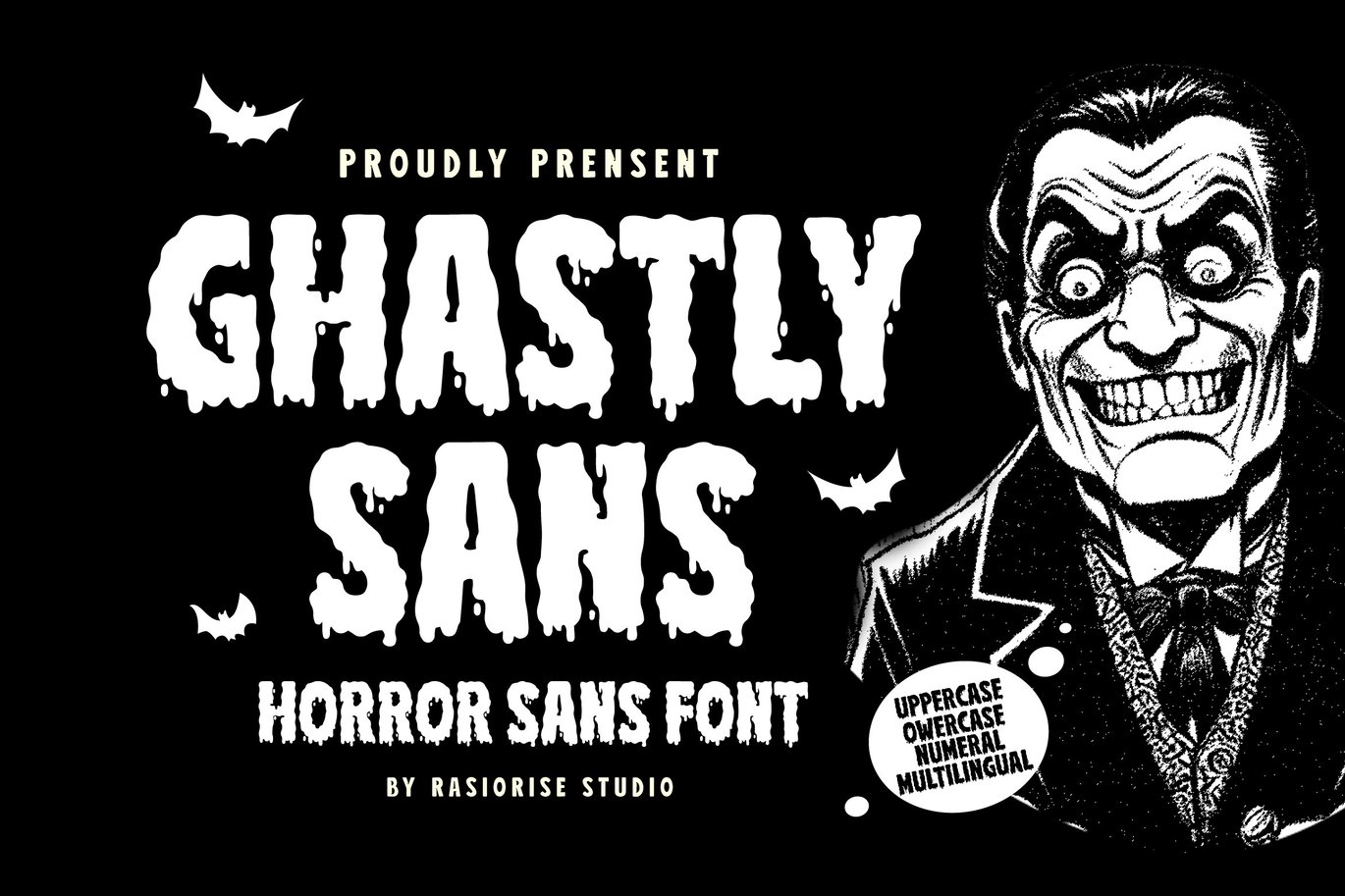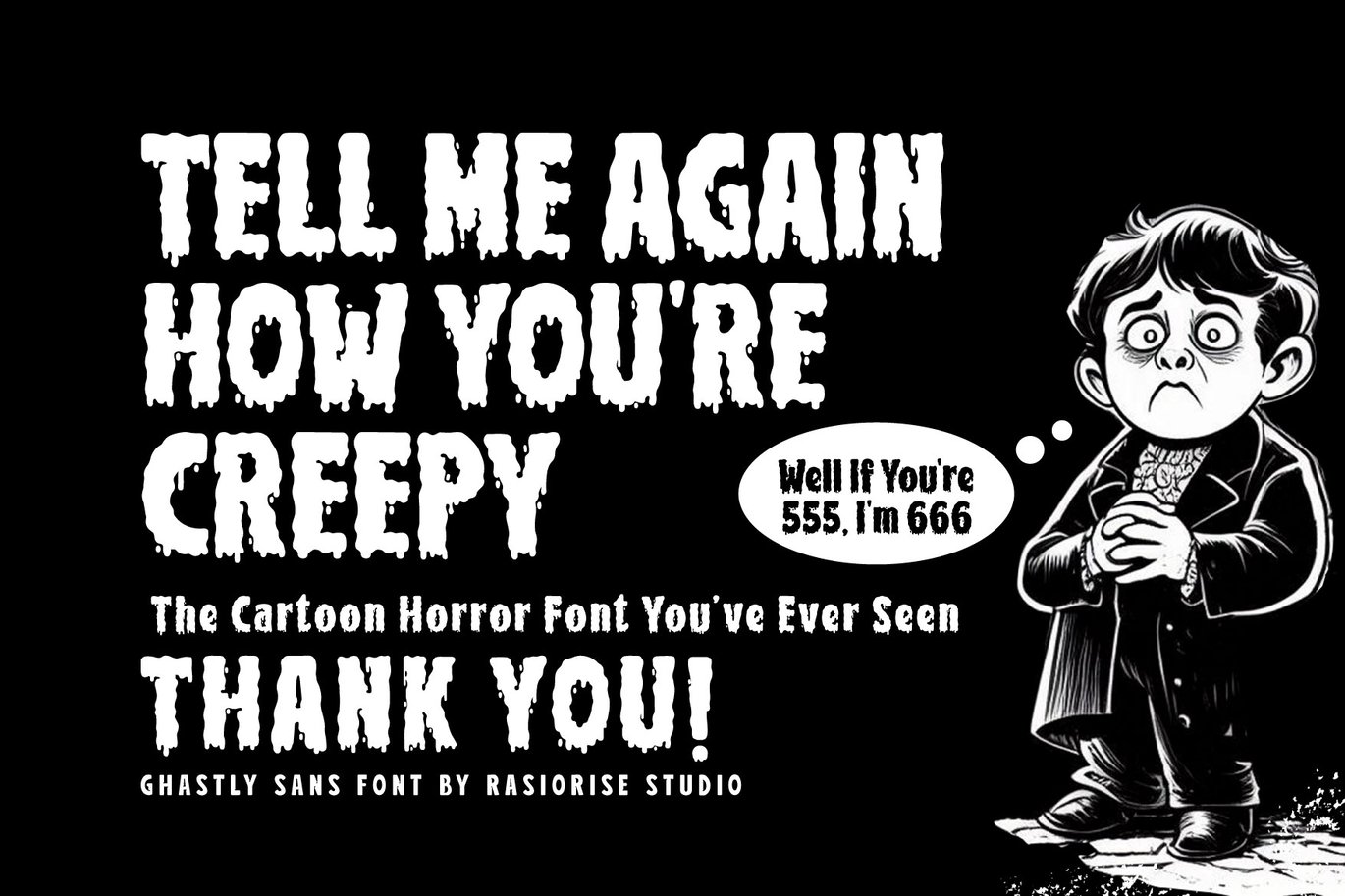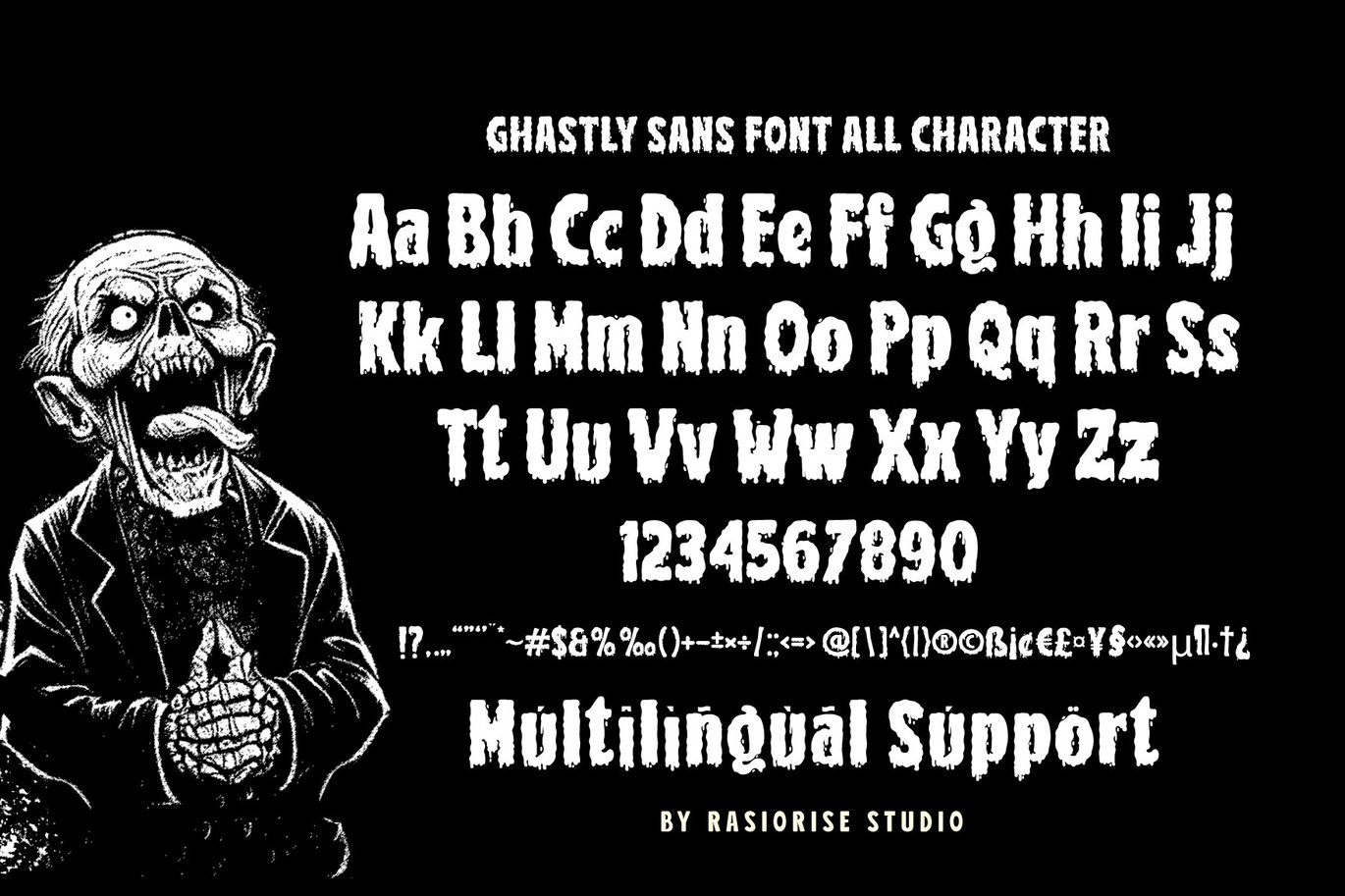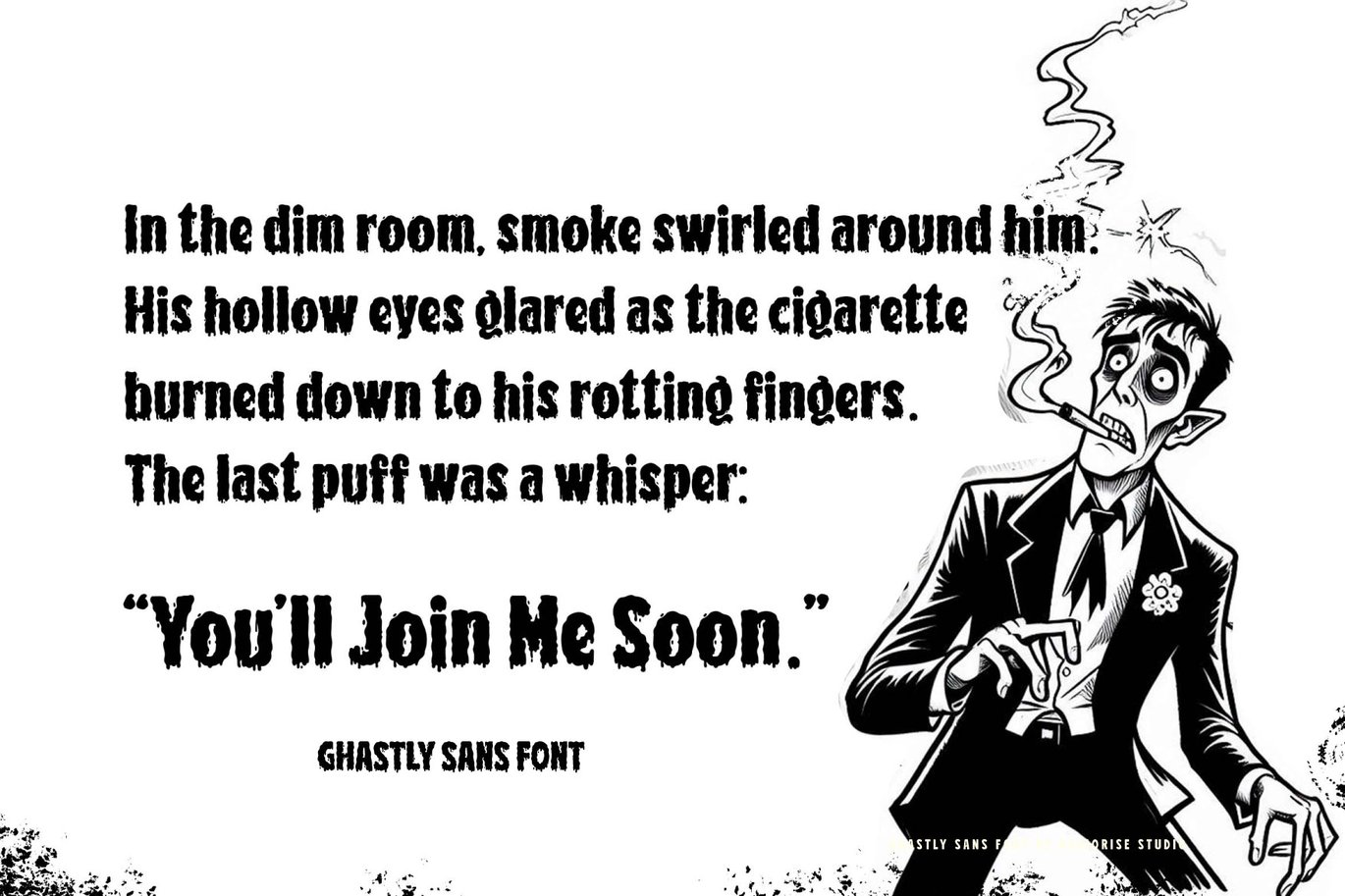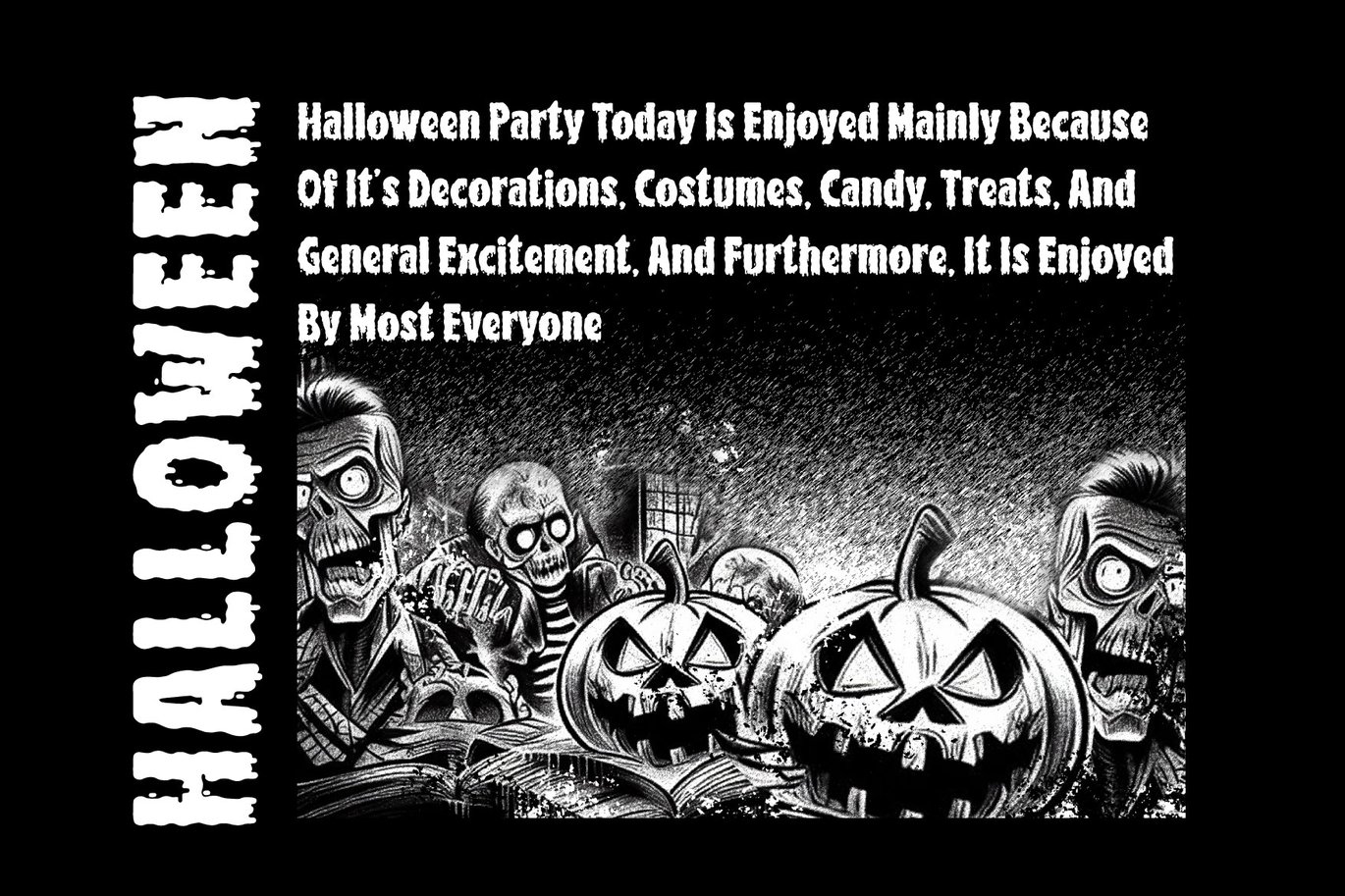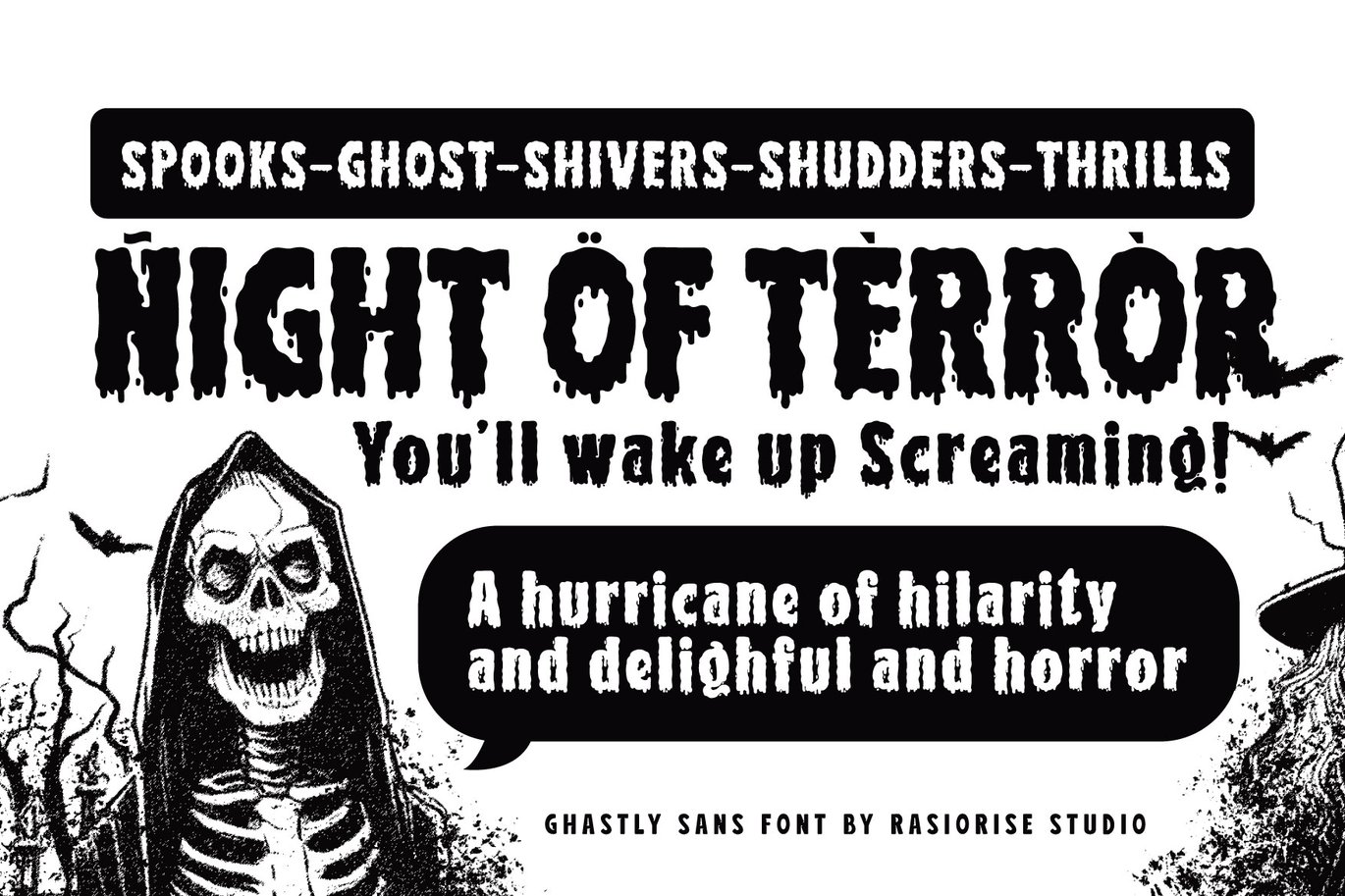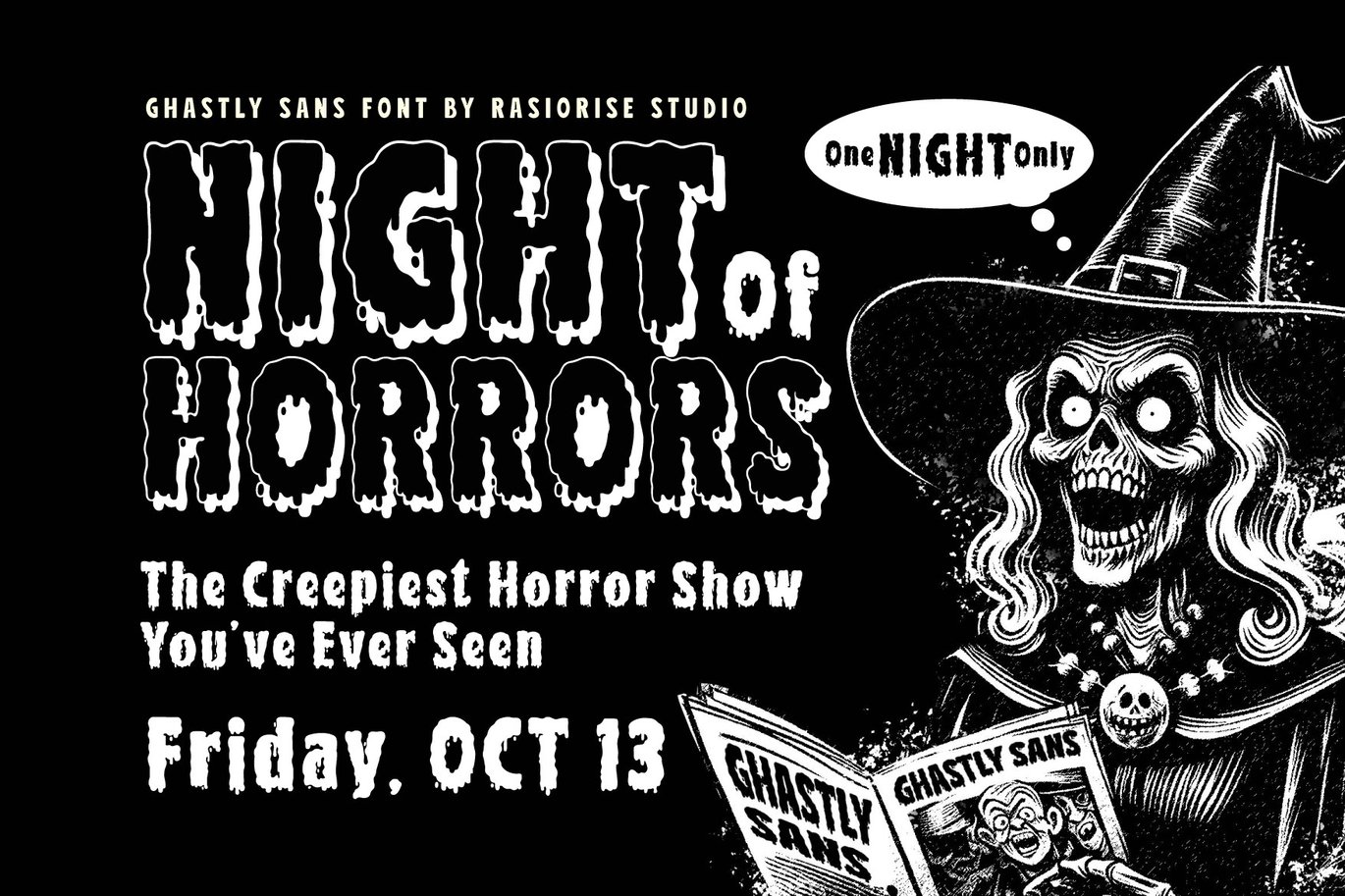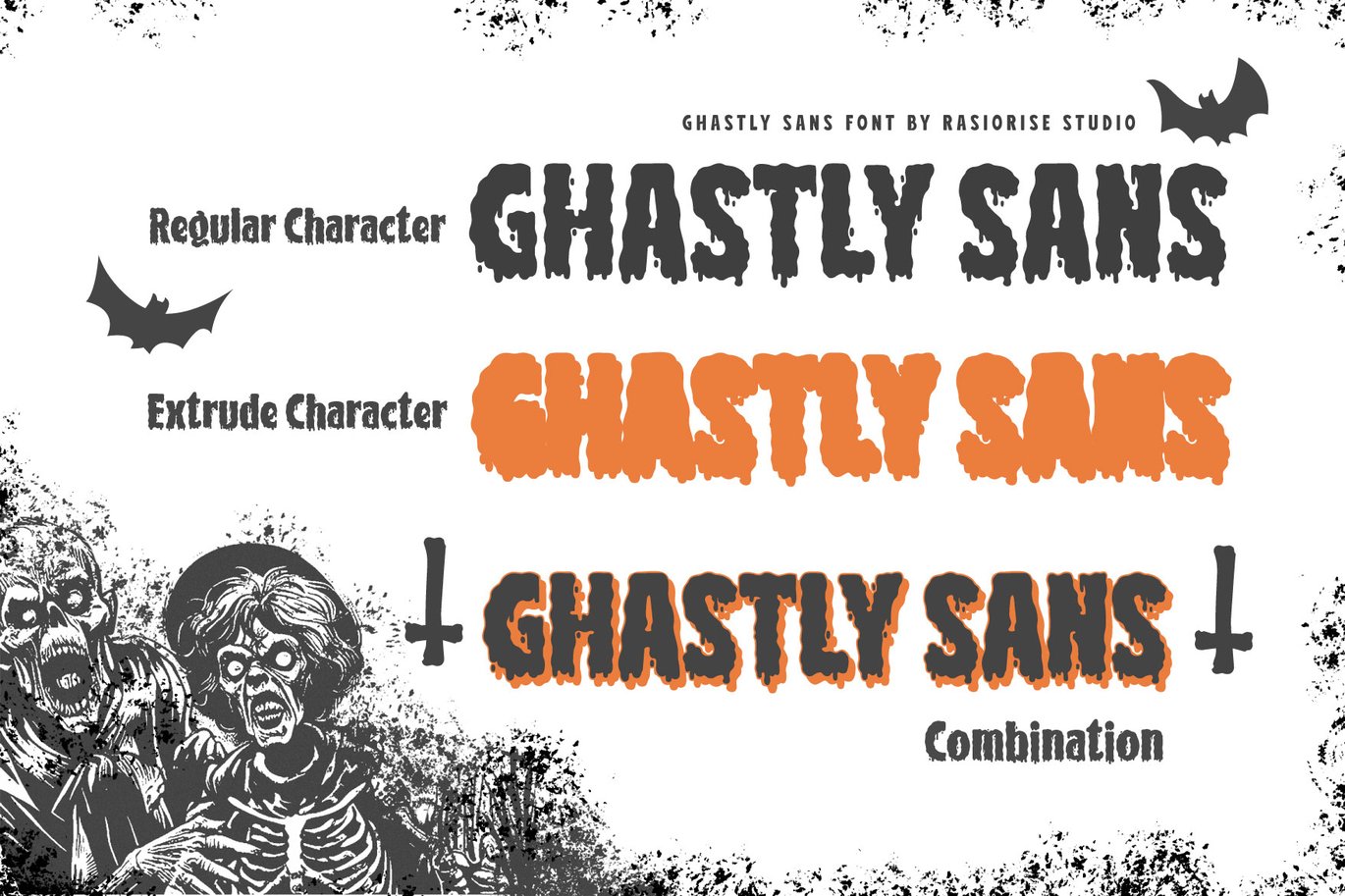
Ghastly Sans – Horror Sans Display Font
Presenting Ghastly Sans – Horror Sans Display Font By Rasiorise Studio
Ghastly Sans has been released for those of you who are looking for a Halloween and Horror Sans Type font, The font is inspired by the Comic and Headline Sans Serif font with hand drawing dripping free style with a few combine to turn them into a bit of a horror style. Unleash your creativity at halloween party with Ghastly Sans Font, perfect for adding a Horror, Creepy touch to any projects!
Ghastly Sans Font very suitable for Logotype, Book Cover, Halloween party Invitation, Gift Card, Gretting Card, Poster, Merchandise, Packaging Label, Badge/Emblem Logo and much more.
- Numeral, Punctuation & Symbol
- Regular and Extrude Character Font Versions